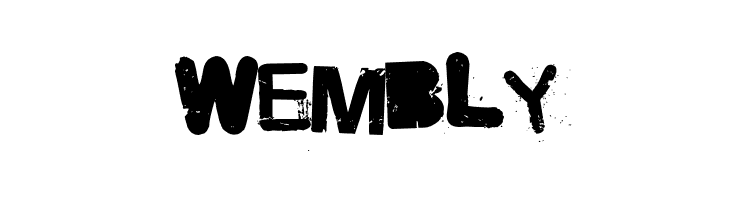
After Christmas Font
- Font: After Christmas
( Fonts by Andrew Hart - dirt2.com )
A bold, distressed font with a grunge texture and star motifs, ideal for edgy designs.